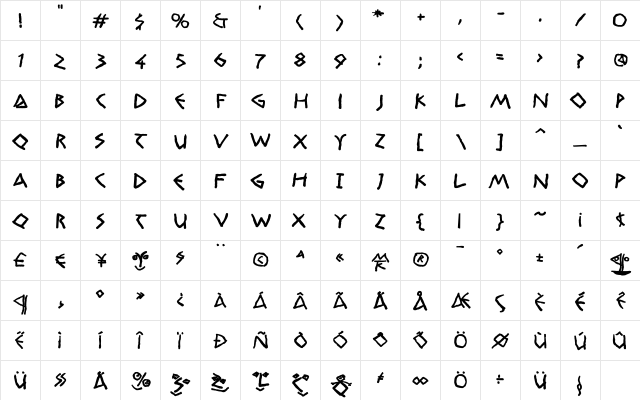
RandomUnciale Regular Font Preview
RandomUnciale Regular
Design Context for RandomUnciale Typeface
RandomUnciale is a composed and adaptable typeface that performs quietly and consistently across a wide range of design contexts.